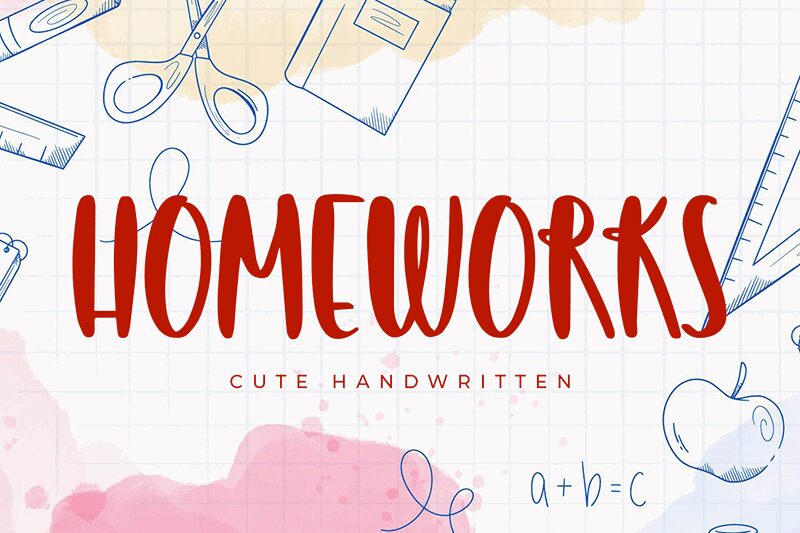
Homeworks is a smooth brush font designed by Panggah Laksono of Abo Daniel Studio. It has a condensed width and great readability, making it an ideal choice for headlines, logos and other creative projects. The unique style of Homeworks would also make a great addition to designs such as posters, greeting cards and scrapbooking.
Homeworks